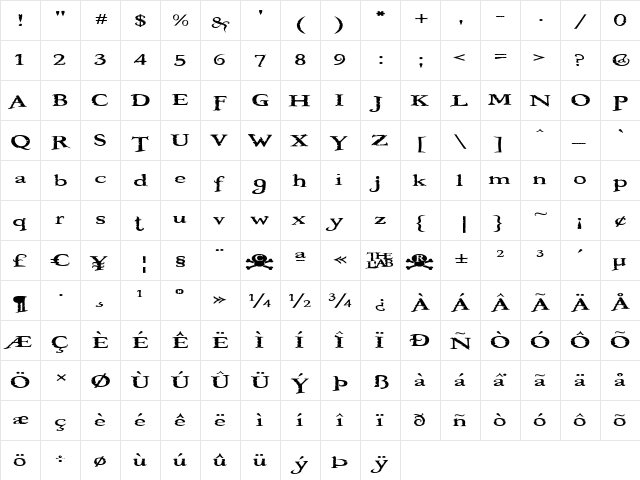
Booter - One Zero Regular
| Designer | Outlines by Graham Meade, space geometry by Apostrophe ('). |
Design Context for Booter - One Zero Typeface
Booter - One Zero takes a measured approach to typography — its balanced proportions and neutral character make it a reliable workhorse for both digital and print work.